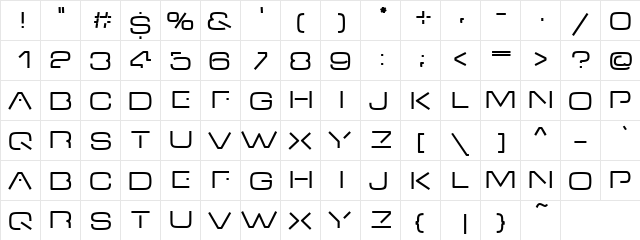
Bron Regular
Design Context for Bron Typeface
Bron offers clean, dependable letterforms without strong stylistic allegiance, making it a practical choice for designers who need flexibility.